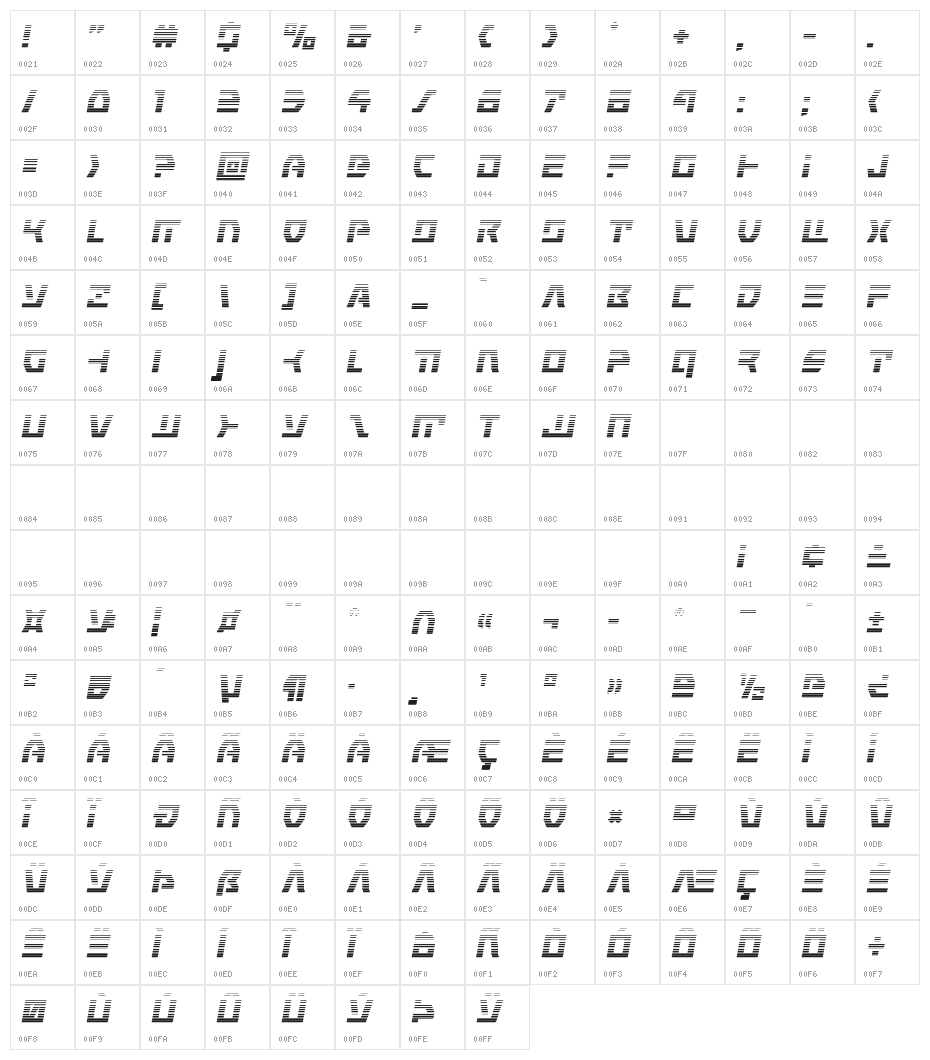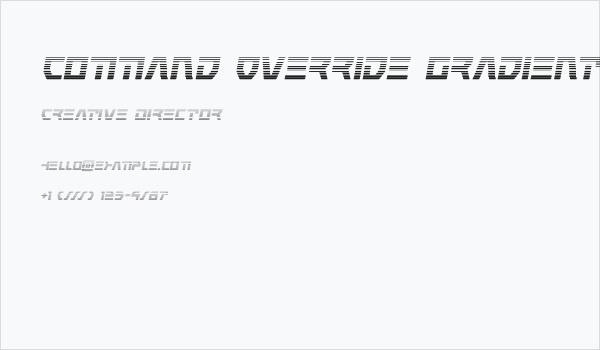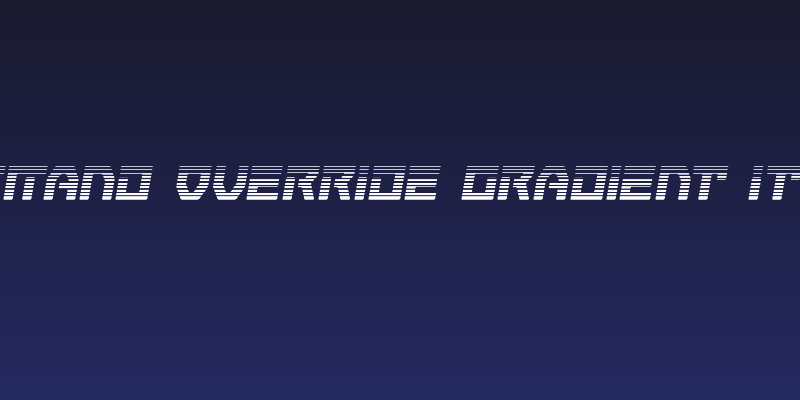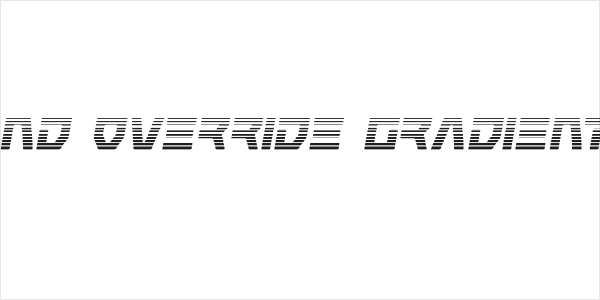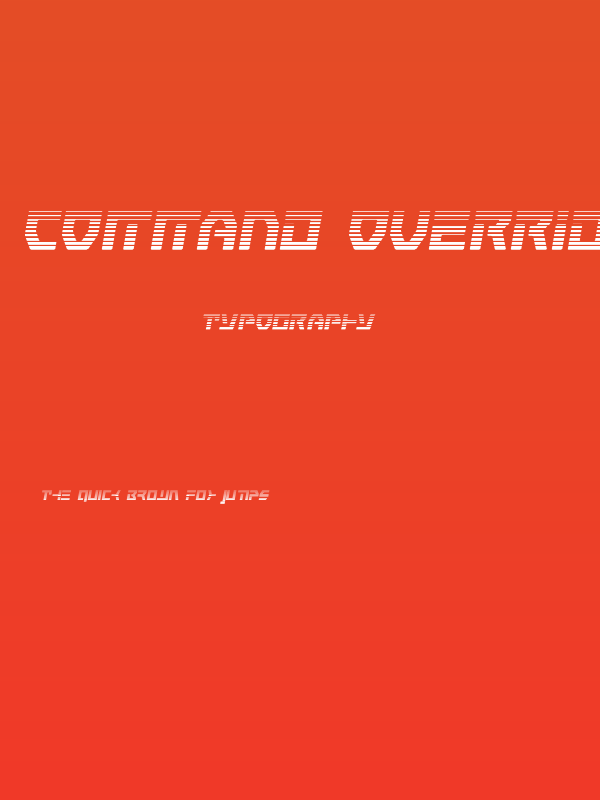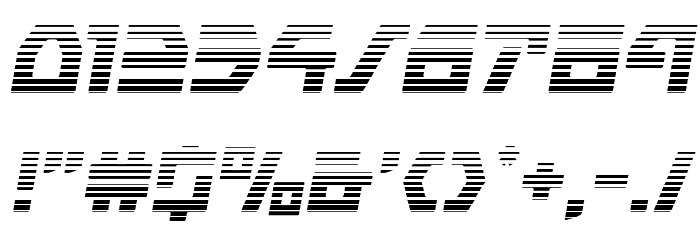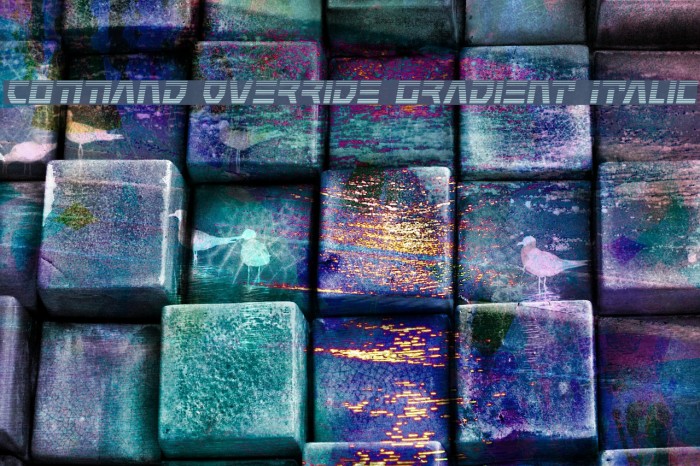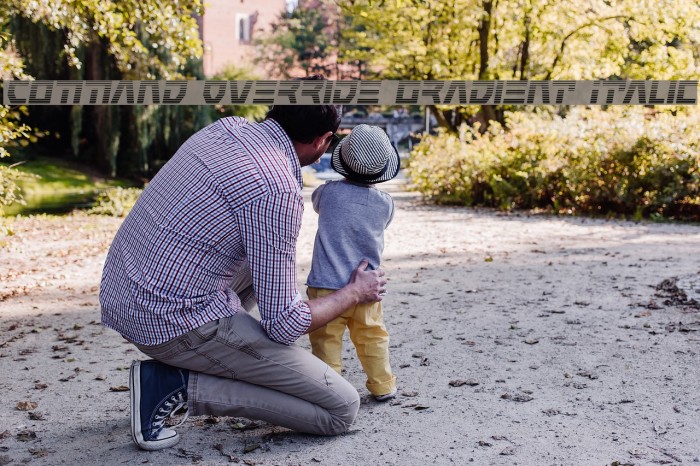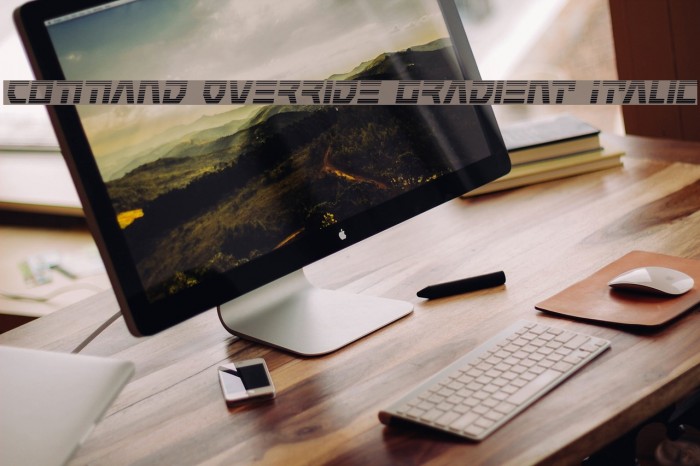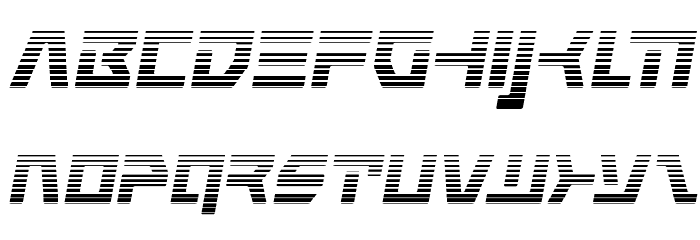
Command Override Gradient Italic Font
Command Override Gradient Italic Description
This font features a futuristic and dynamic design with a gradient effect that gives each character a sense of motion. The italicized style enhances the forward-leaning appearance, making it ideal for projects that require a modern and edgy look. The characters are composed of horizontal lines that create a striped pattern, adding depth and texture. This unique design is consistent across uppercase, lowercase, numerals, and special characters, ensuring a cohesive visual identity. The font's boldness and distinct style make it stand out, suitable for creative and innovative applications.
| Proposed Projects | Ideal for tech-related branding, video game titles, futuristic posters, and sci-fi themed designs. |